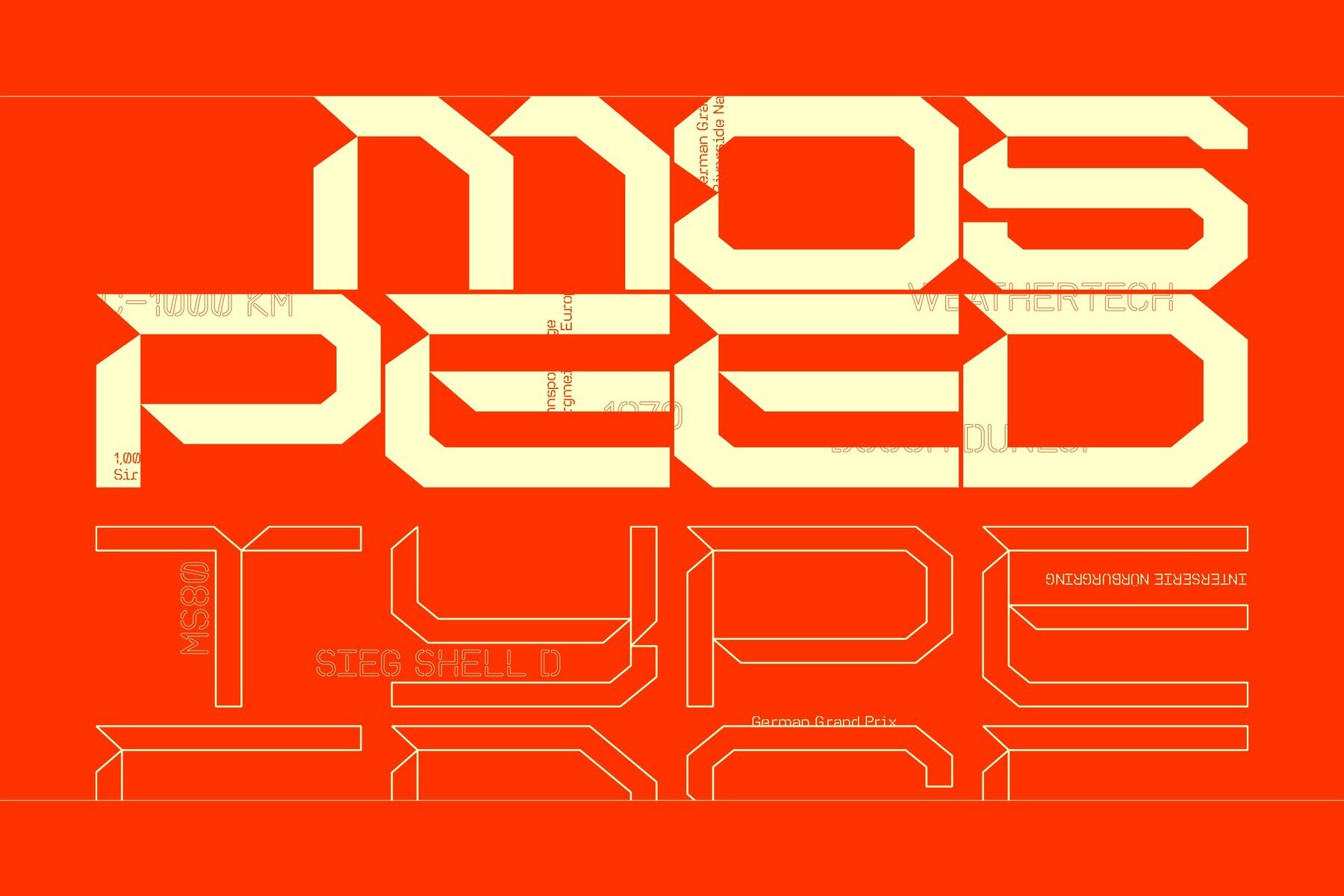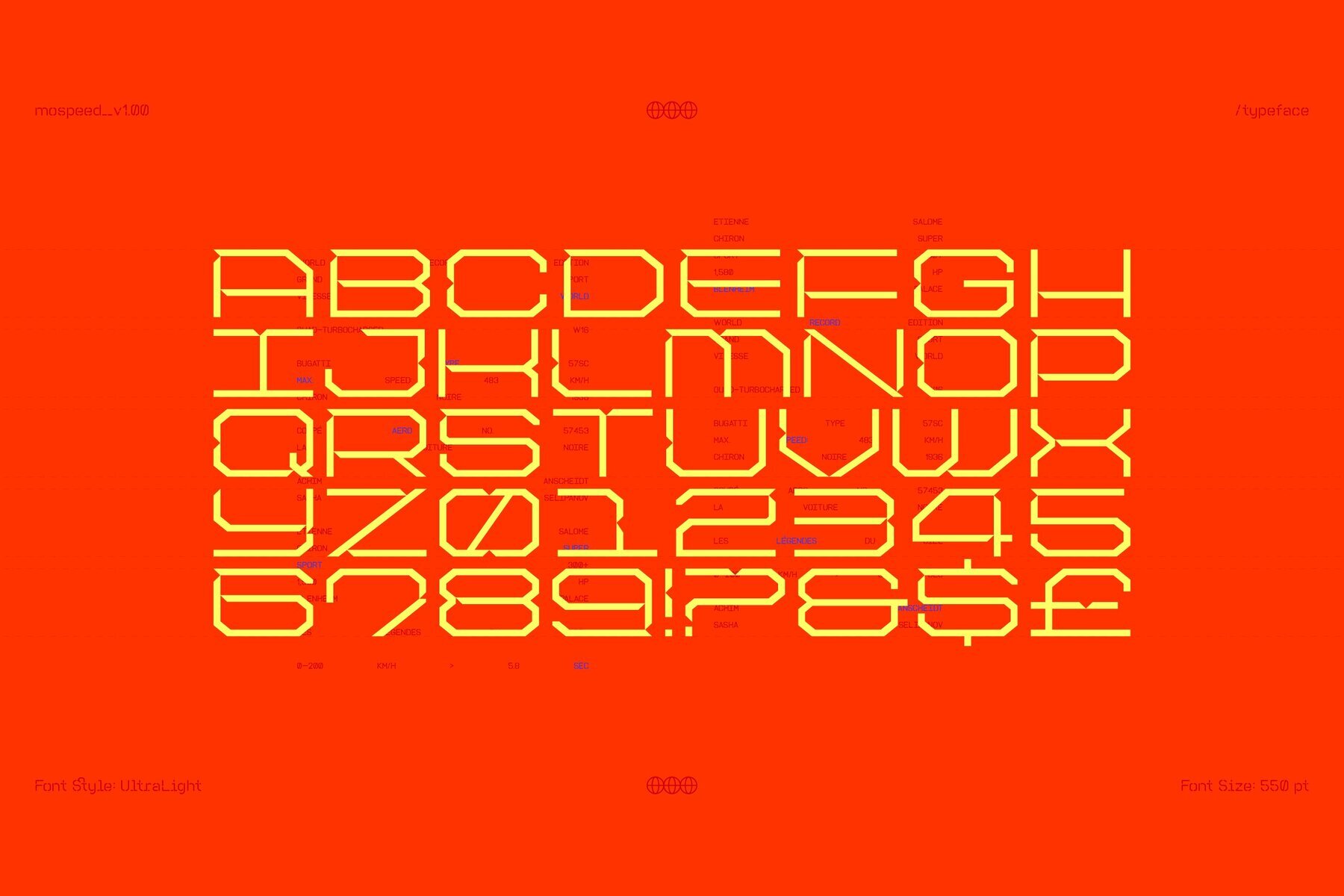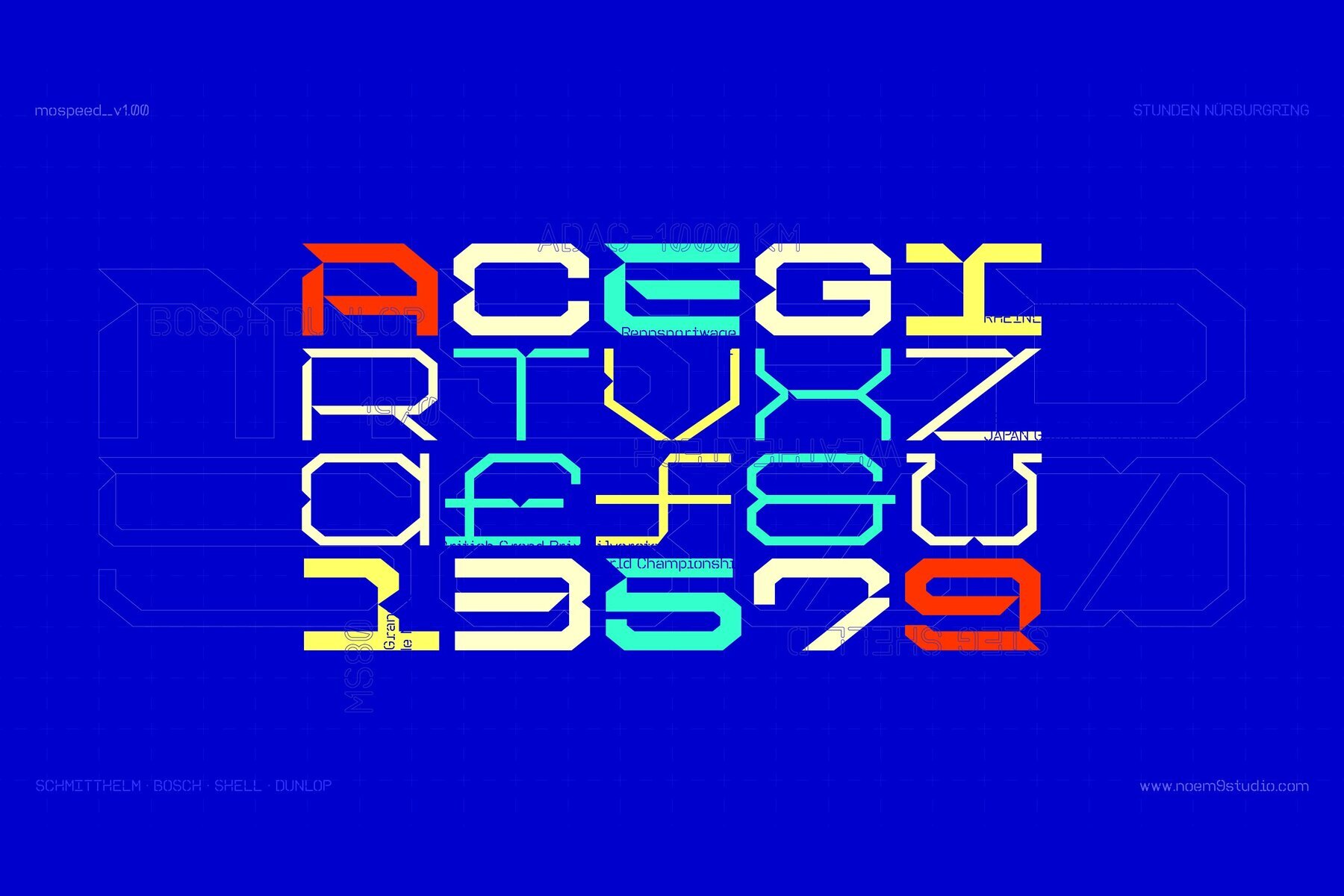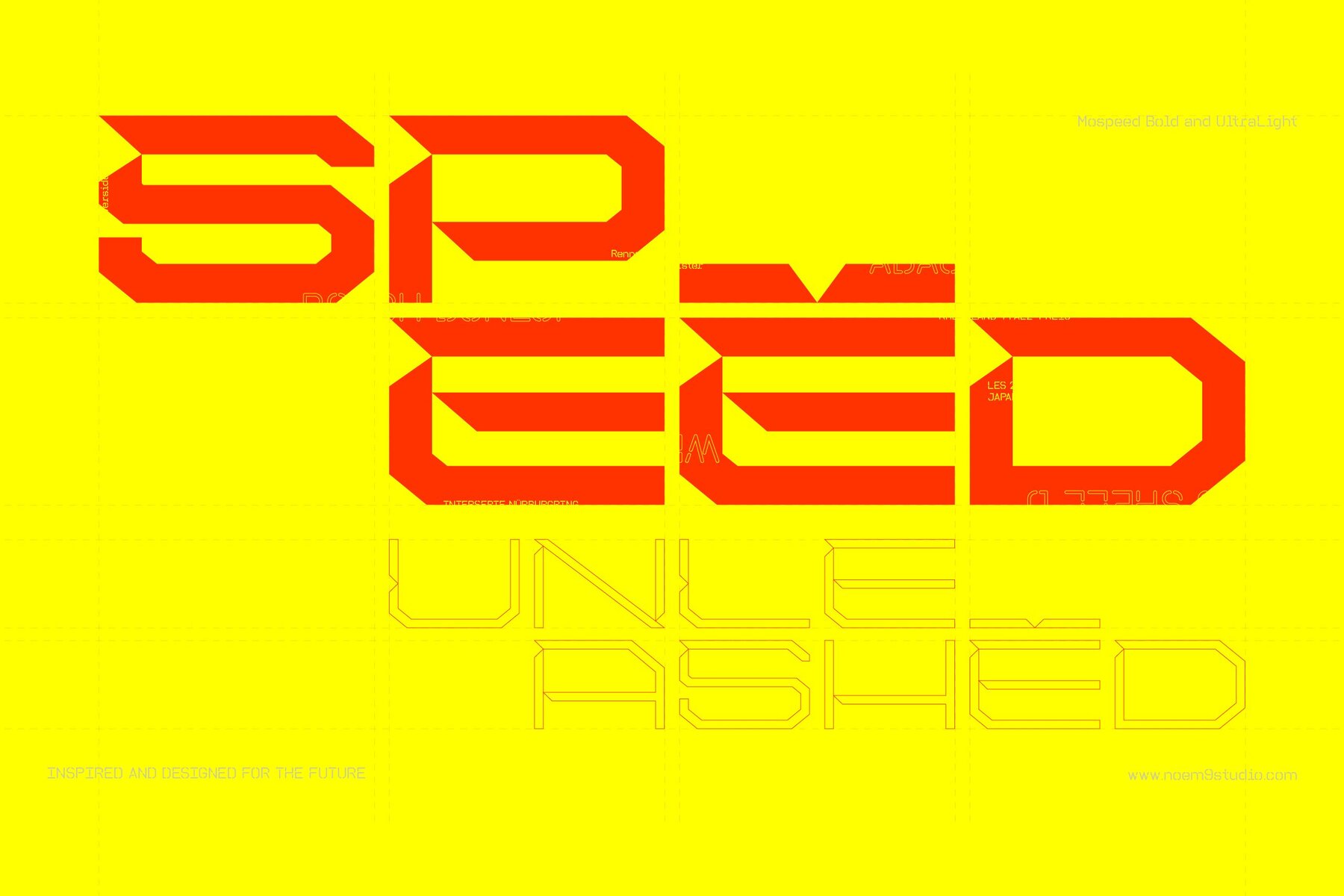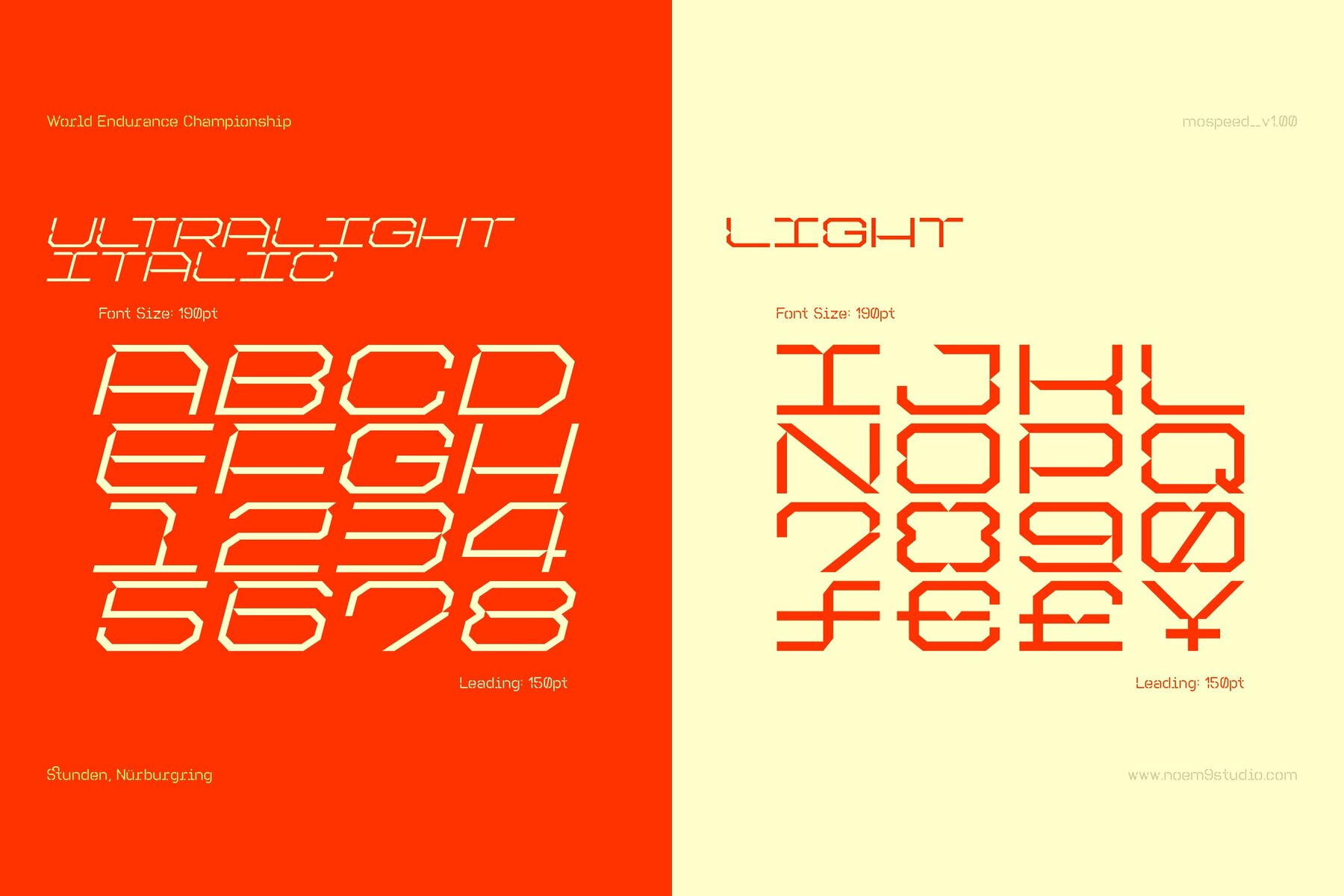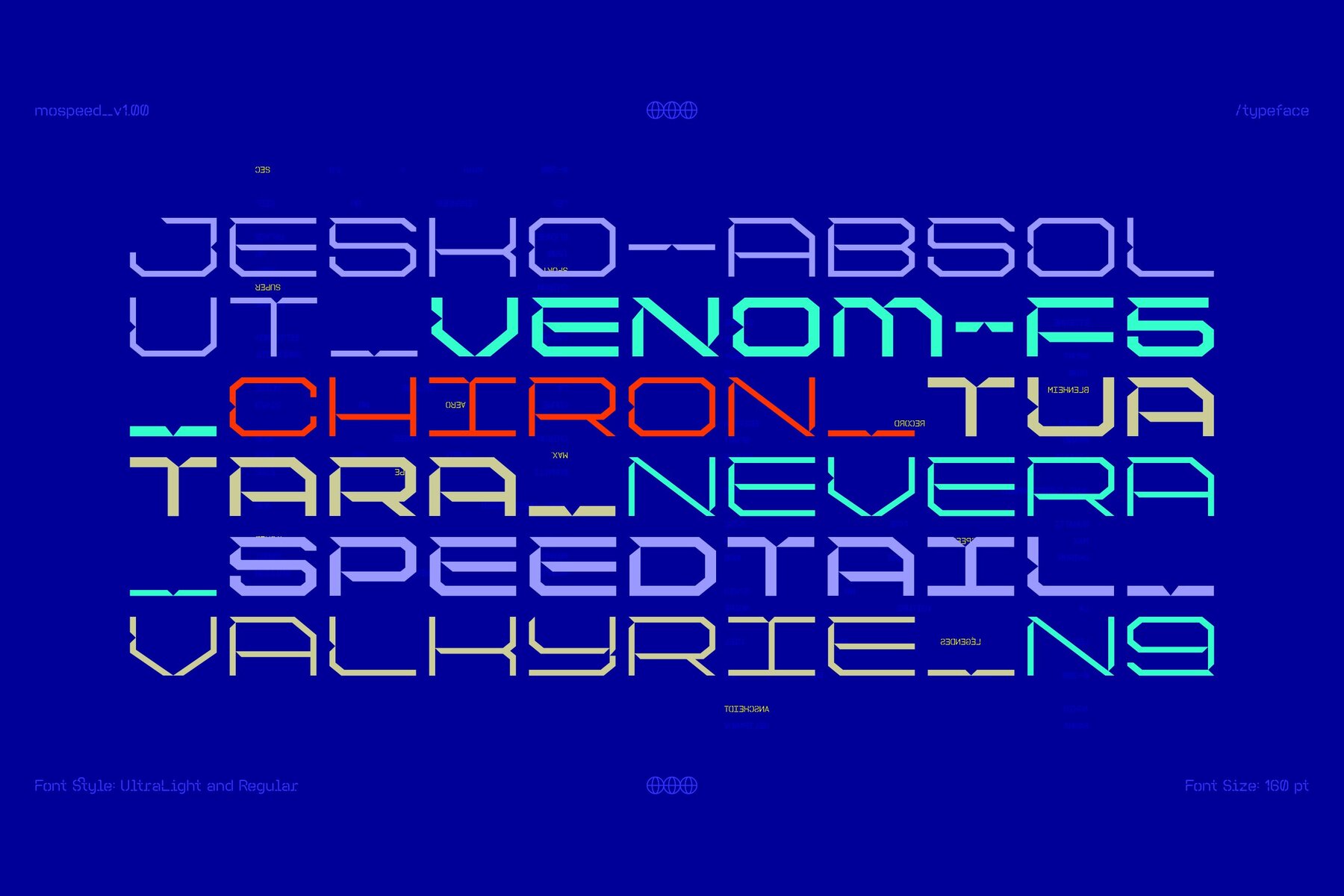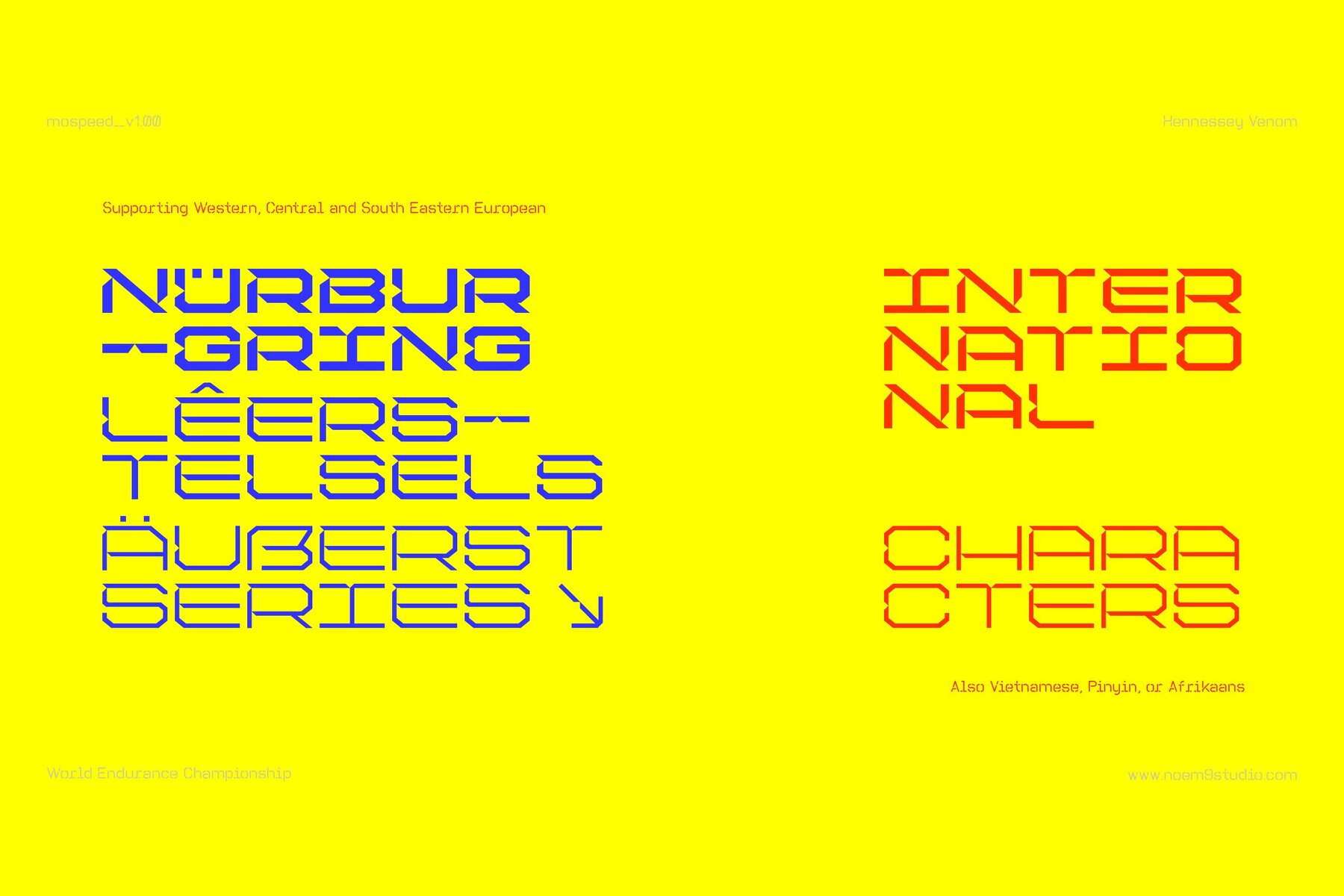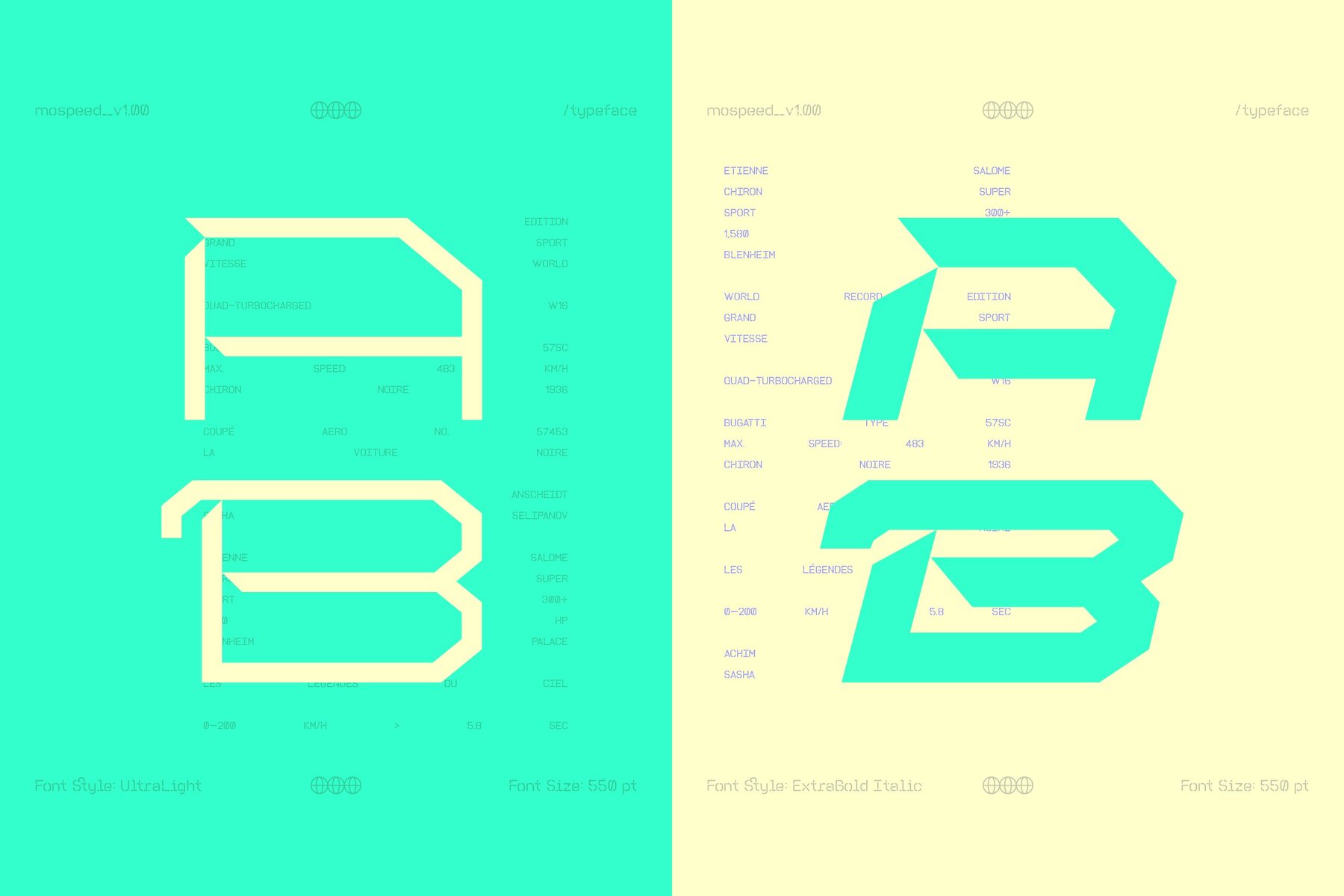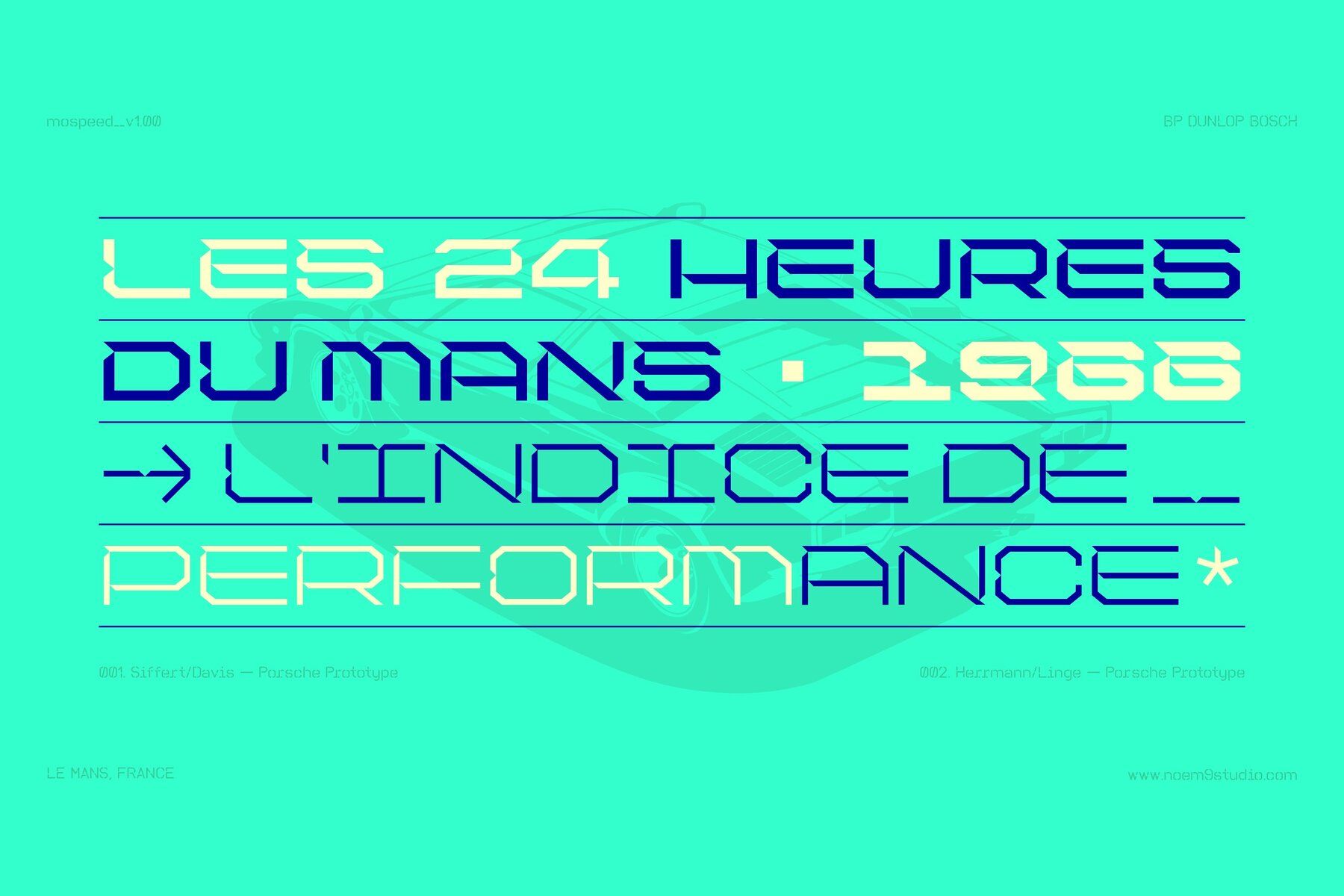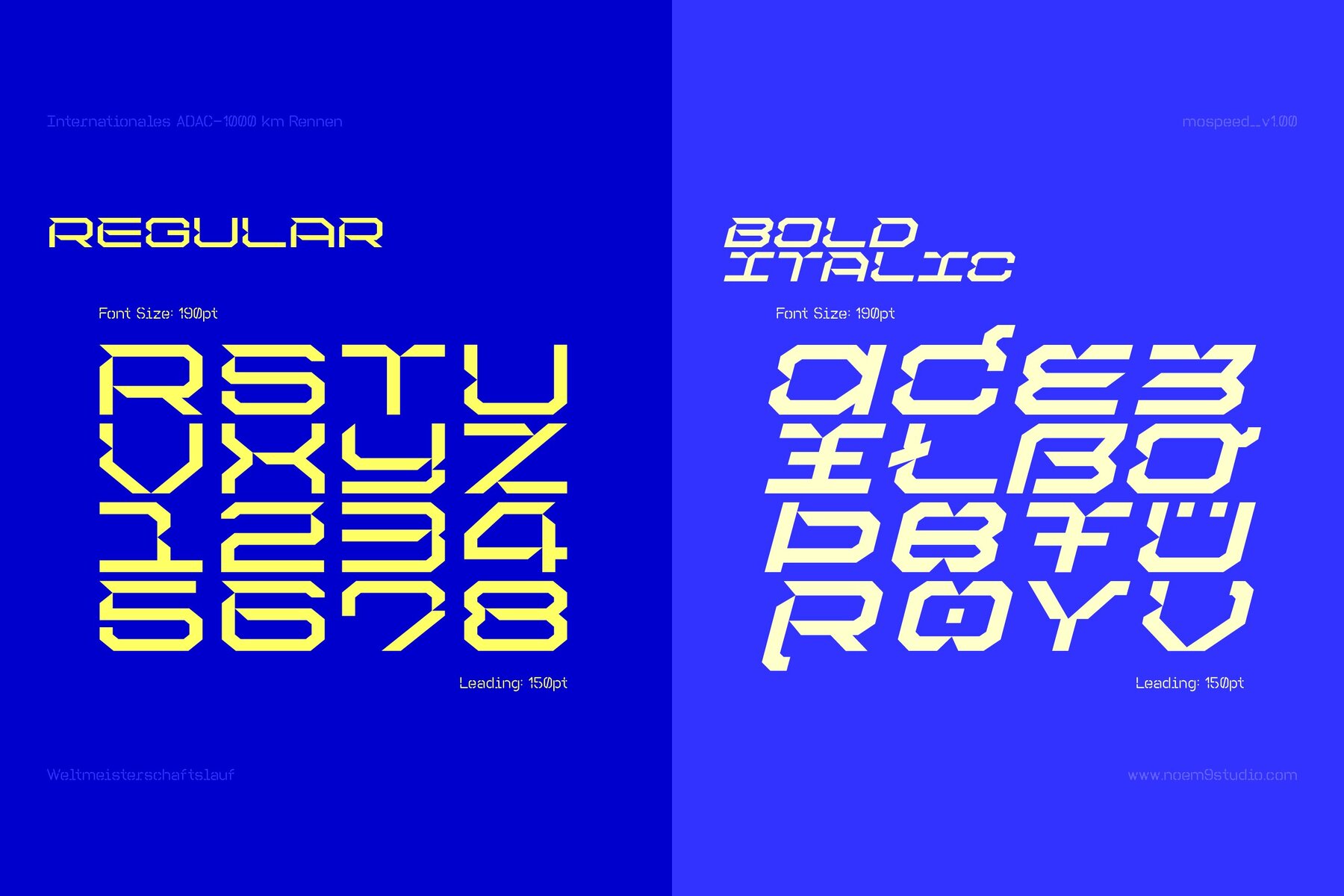
Mospeed Font
Mospeed — The Typeface Redefining Speed and Precision! Features:
Imagine a typeface that embodies the very essence of speed and technical prowess, crafted to propel your sports-related content to new heights. Meet Mospeed, where velocity meets excellence, and sharpness intersects with brilliance. Embrace the power of this revolutionary typeface, and watch your sports car campaign soar to new, unparalleled heights of success. Let your words take on the persona of a finely-tuned engine, roaring with a sense of urgency that leaves a lasting impression on all who behold it.
It comes in 6 different weights: UltraLight, Light, Regular, Bold, ExtraBold & Black that you can select depending on your needs. And their respective italic versions, making it 12 styles for you to play around.